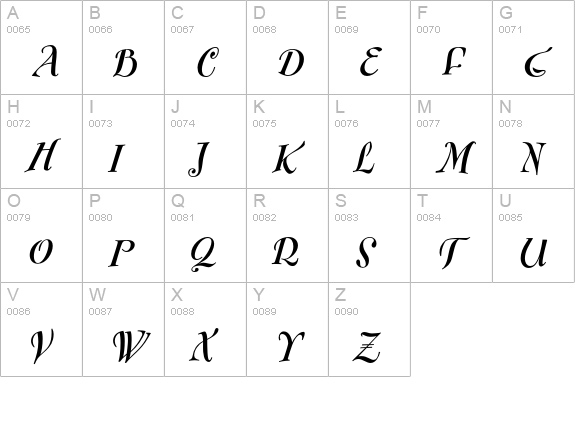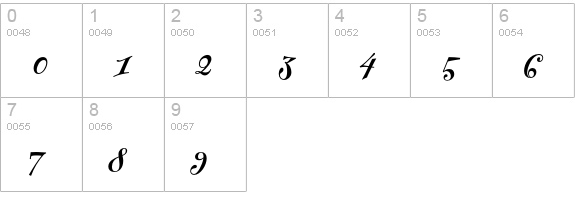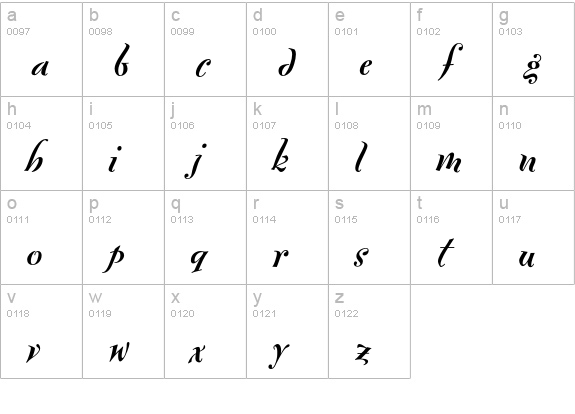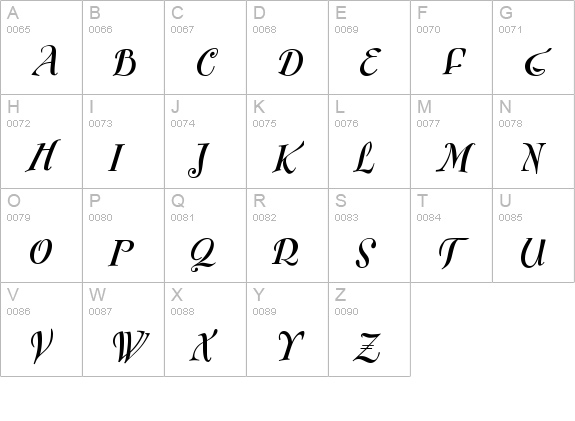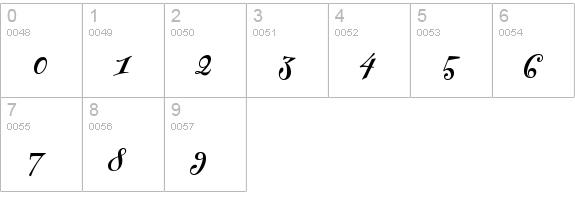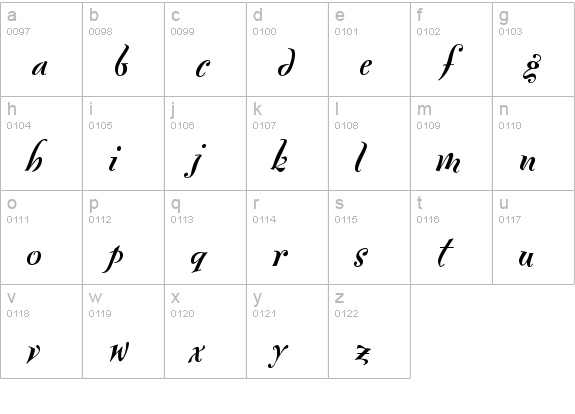
Fontesque-BoldItalic is a modern and elegant typeface that exudes sophistication and style. The bold italic design of this font adds a touch of flair and drama to any project, making it perfect for headings, titles, and other key elements that demand attention. The sleek curves and sharp angles of Fontesque-BoldItalic create a unique visual impact that is both eye-catching and memorable. What's even better is that Fontesque-BoldItalic is available for free download at FontsMarket.com. Whether you're designing a website, creating a poster, or working on a branding project, this font is a versatile and powerful tool that will elevate your design to the next level. Download Fontesque-BoldItalic today and add a touch of sophistication to your projects.